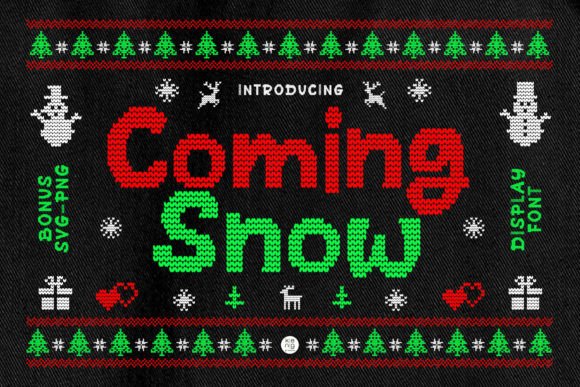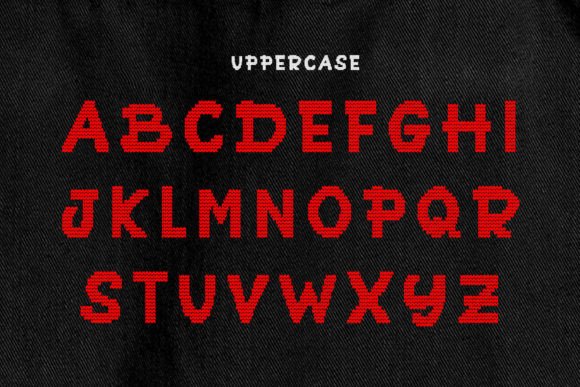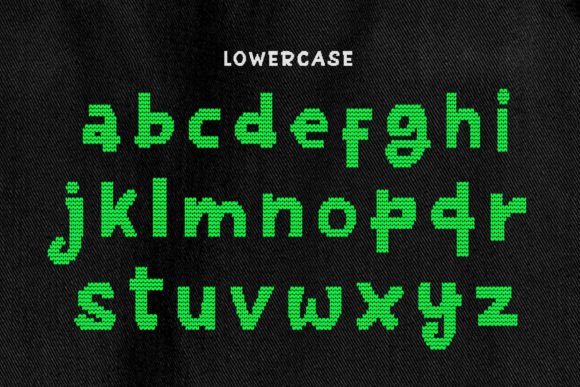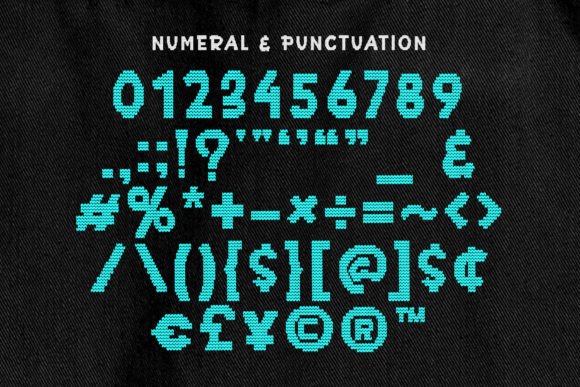
Coming Snow Font: A Stitch Style Display Font for Holiday Crafts
About the Coming Snow Font
Get ready to be inspired by Coming Snow Font, a fresh and dynamic typeface for modern creators. Coming Snow Font is a Display font Christmas font that puts a twist on holiday designs. Each letter is decorated with stylish embroidery. Perfect for shirts, bags, hats, scarves and cards or anything to give as a Christmas gift.
Coming Snow’s playful, yet refined, aesthetic makes it ideal for festive branding projects, holiday packaging, and eye-catching posters. Its decorative nature is best suited for headlines, short text blocks, and design elements rather than large bodies of text. Avoid using it for website body copy or UI elements where readability is paramount.
This font pairs well with clean sans-serif fonts like Open Sans for a balanced contrast, or a more traditional serif like Garamond for a classic, elegant feel. For a playful pairing, consider a handwritten script like Pacifico. The key is to select a supporting font that allows Coming Snow’s unique embroidery details to stand out.
The font exudes a festive cheerfulness, making it perfect for brands targeting a younger demographic or those focused on seasonal goods and celebrations. Its personality is best described as charming and whimsical, yet sophisticated enough for upscale applications.
Coming Snow Font Usage Examples
Coming Snow Font Example